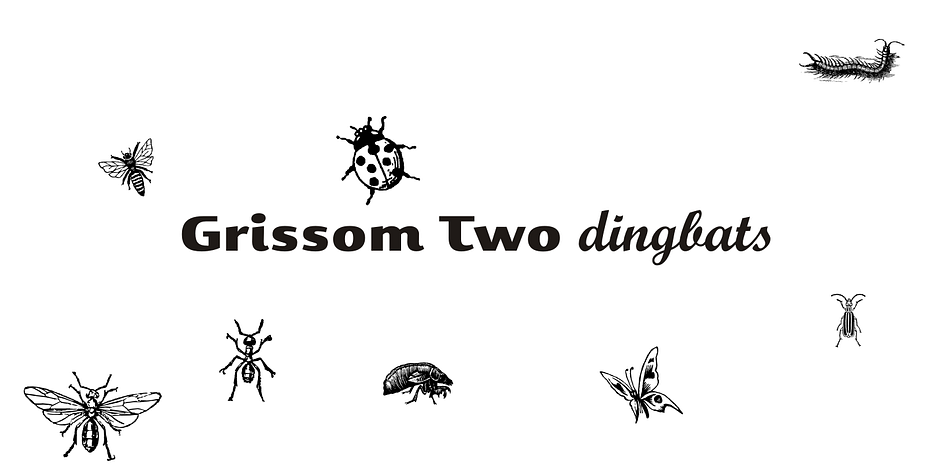
Grisso
Designed by Paulo W, Grisso is a dingbat font family. This typeface has two styles and was published by Intellecta Design.
Two ready to use dingbats fonts with insects, centipedes, spiders and other crawling creatures